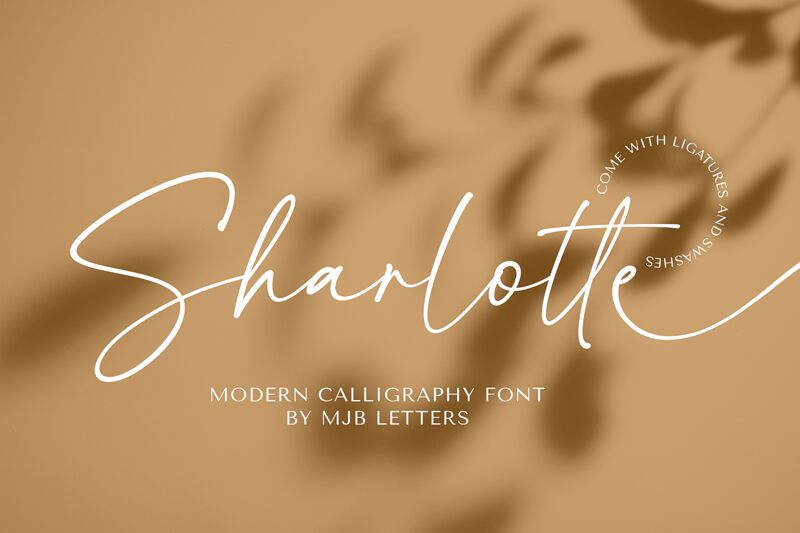
Sharlotte Demo
Sharlotte, designed by MJB Letters, is a light font that exudes elegance and personality. Its handwritten, signature style invites a sense of intimacy and flair, perfect for projects that require a touch of individuality. The graceful flow of its characters is reminiscent of personal correspondence, making it an ideal choice for invitations, branding, and more.
Sharlotte's aesthetic appeal lies in its ability to mimic the nuanced strokes of pen on paper, bringing authenticity to digital design with its delicate and refined presence.